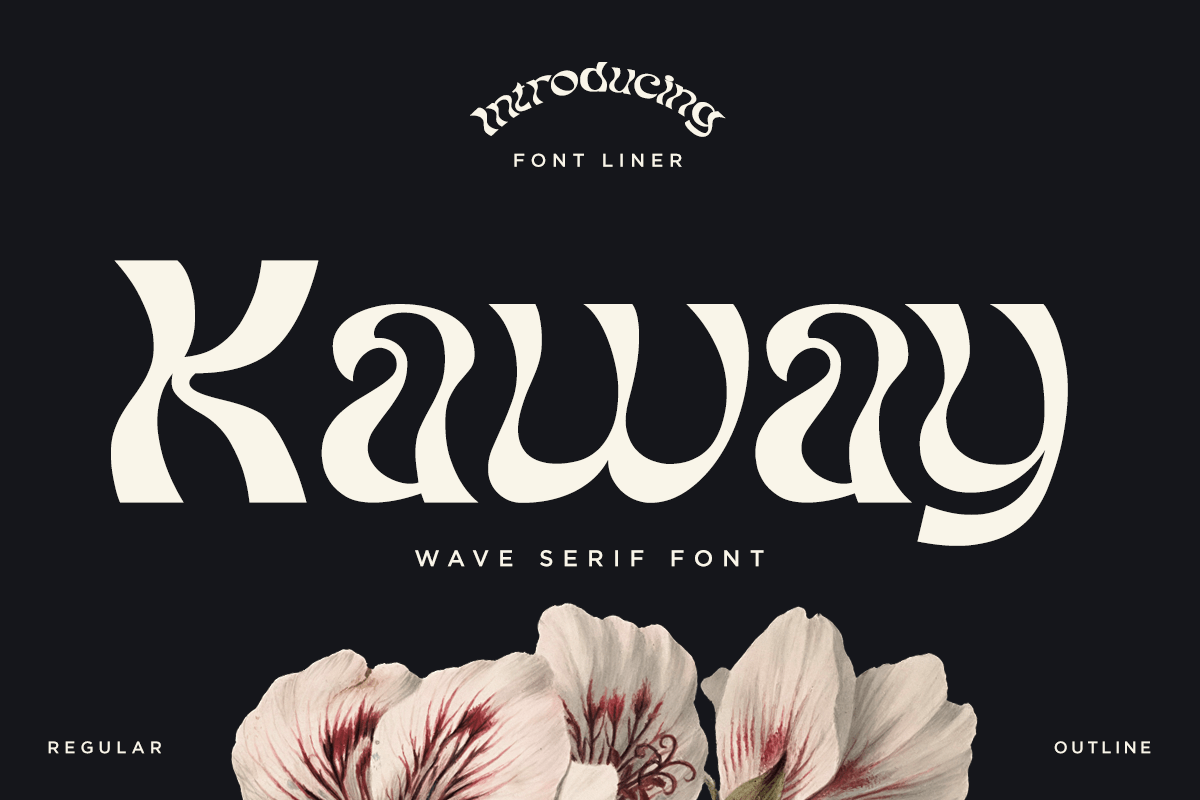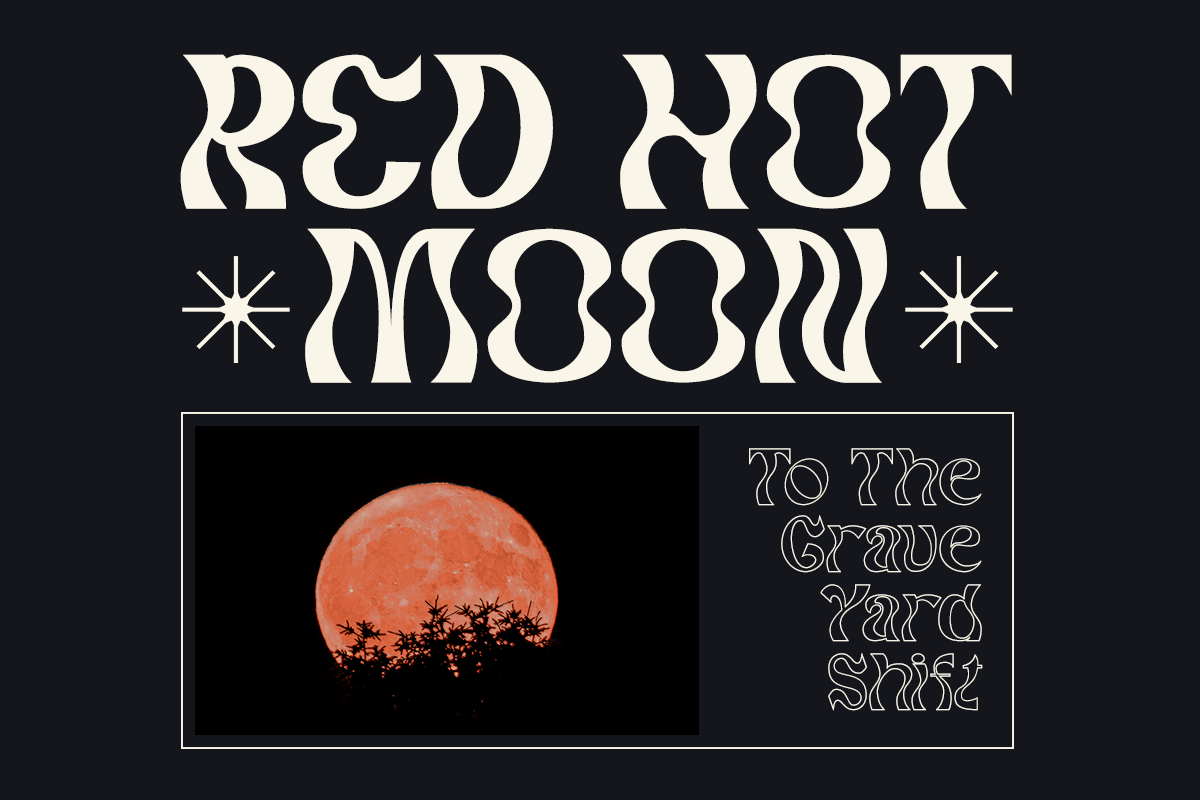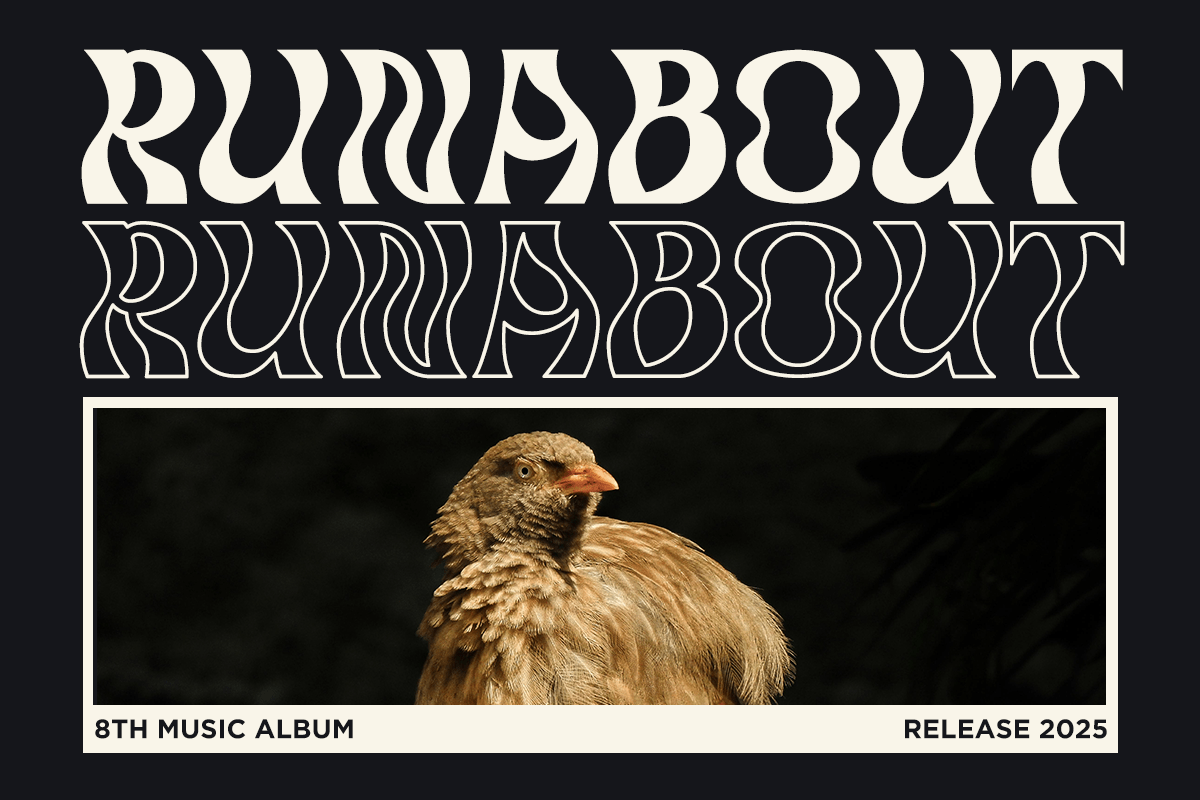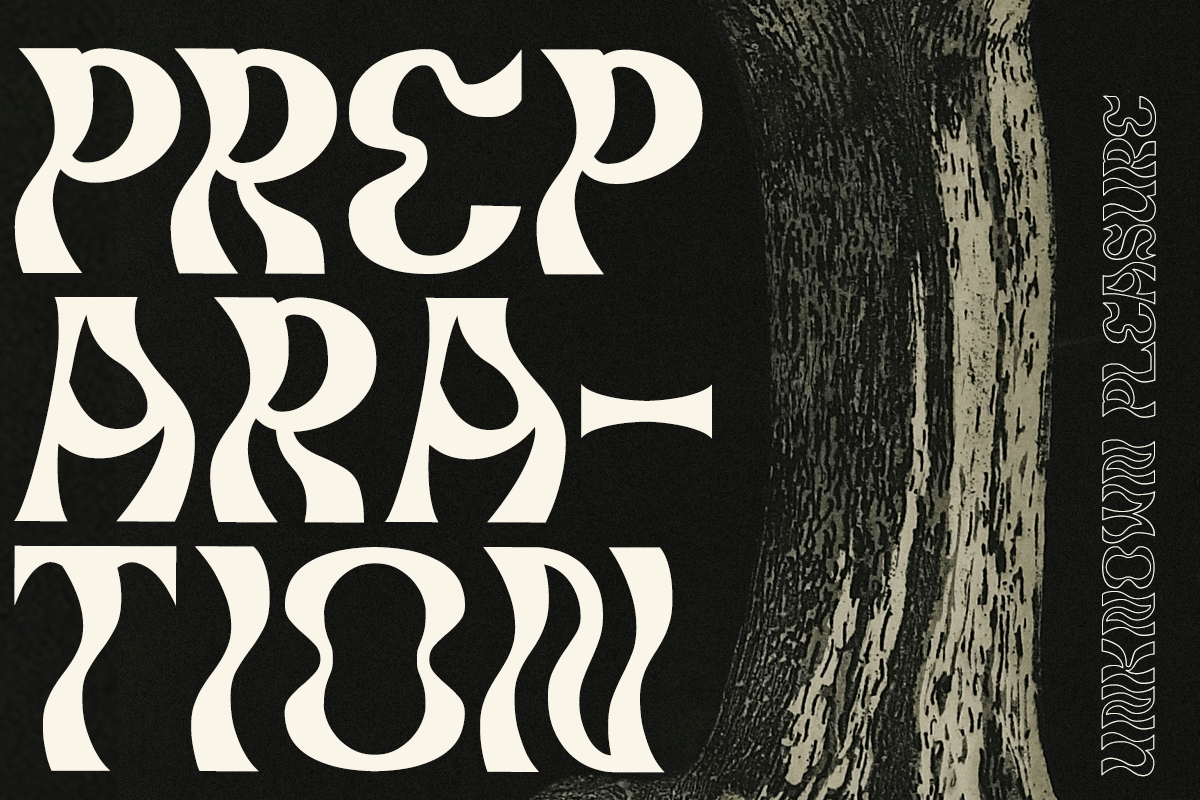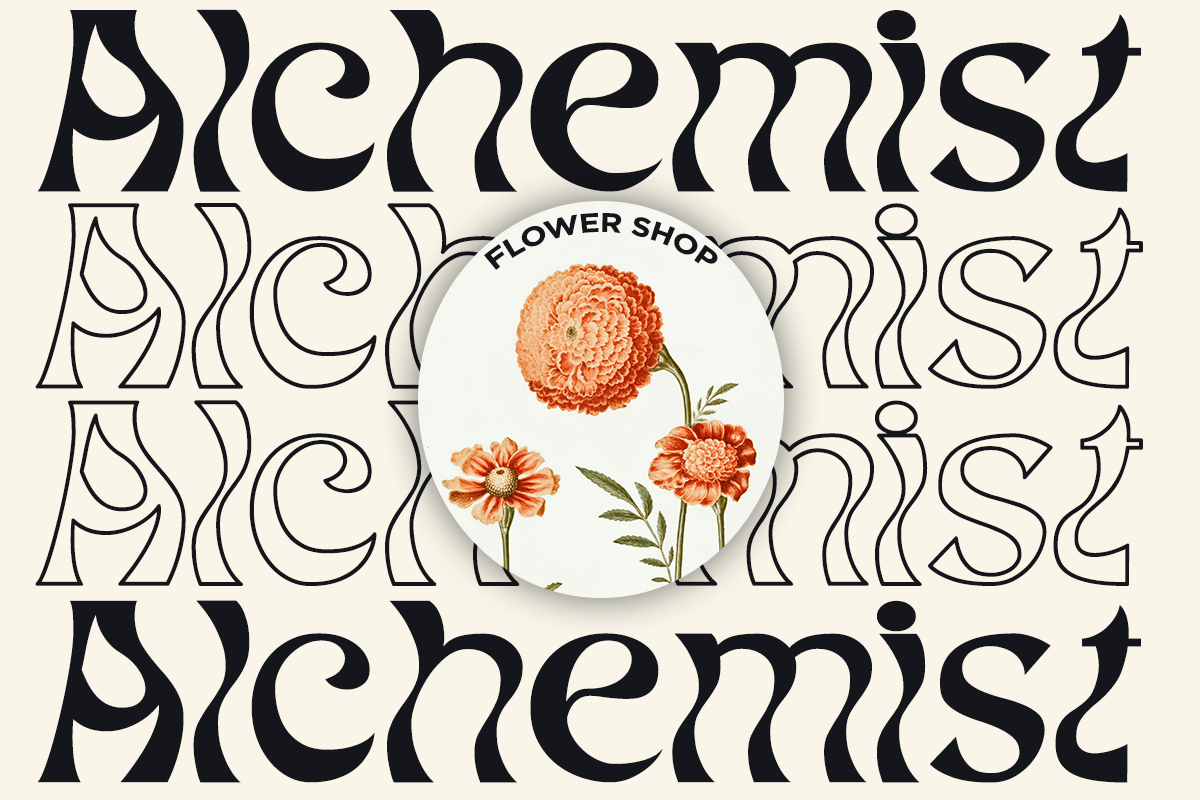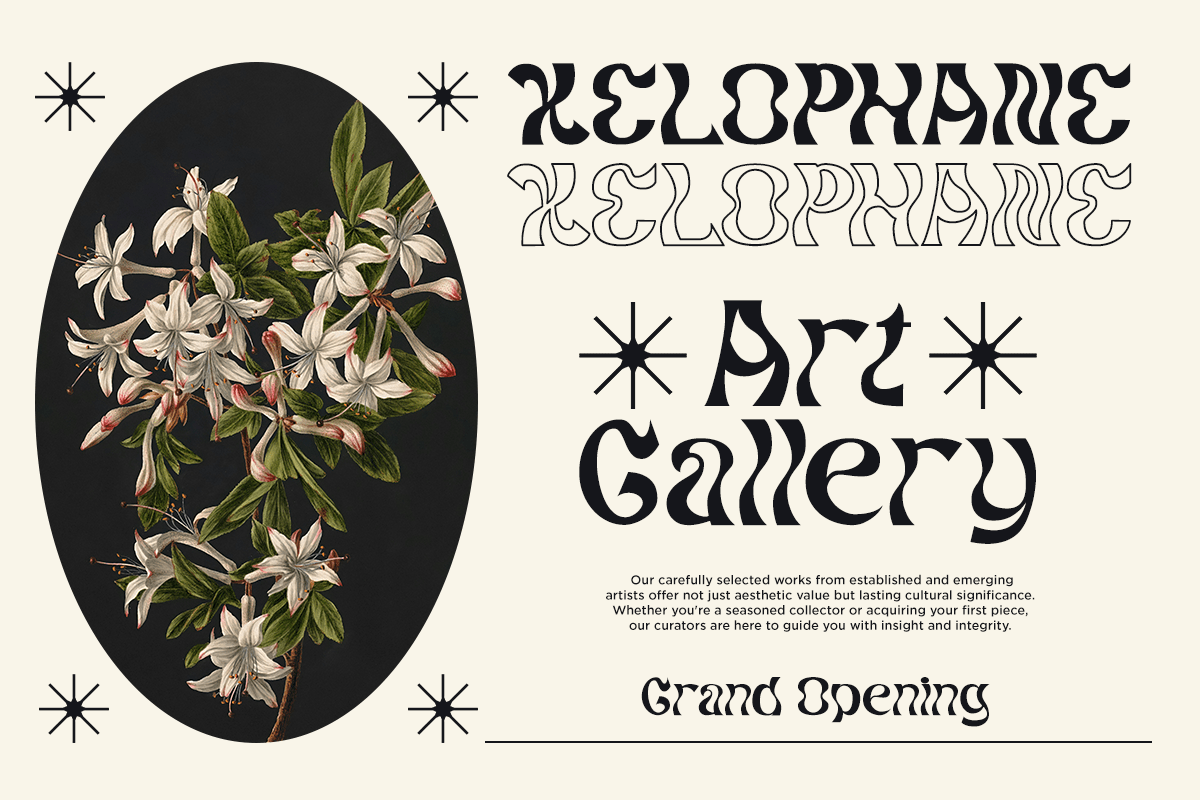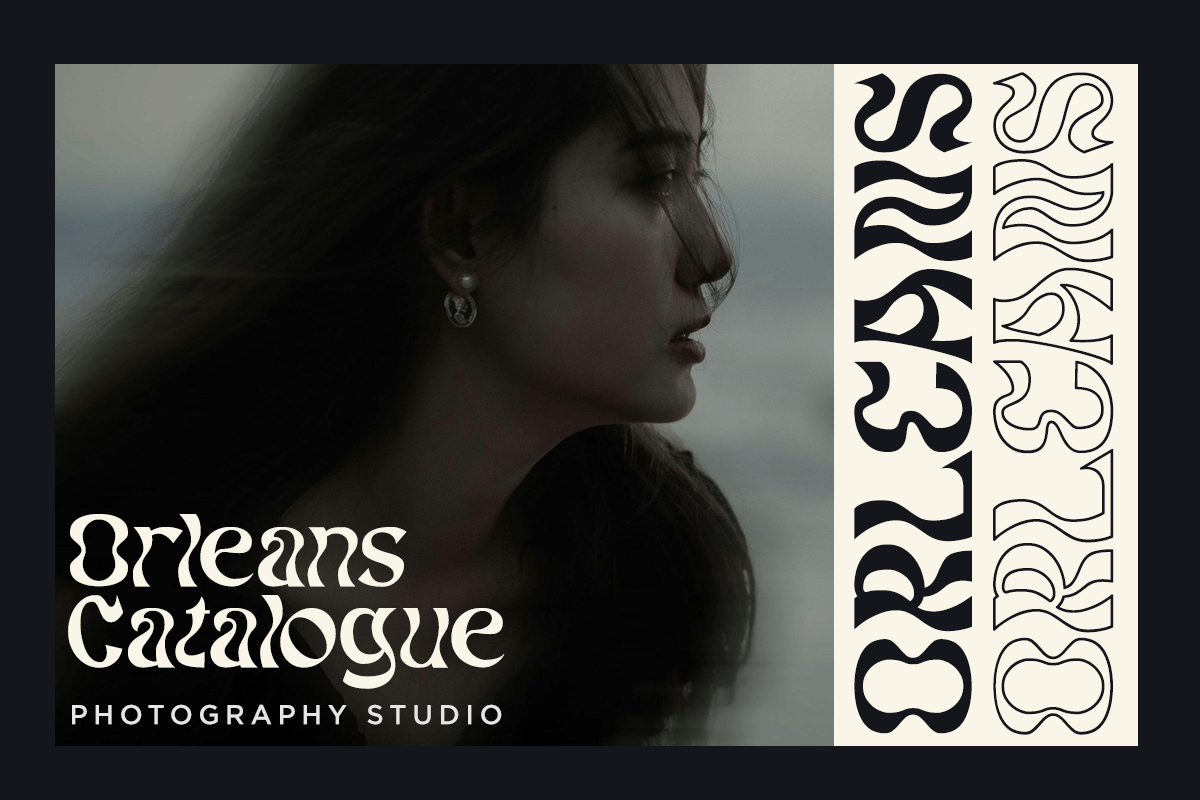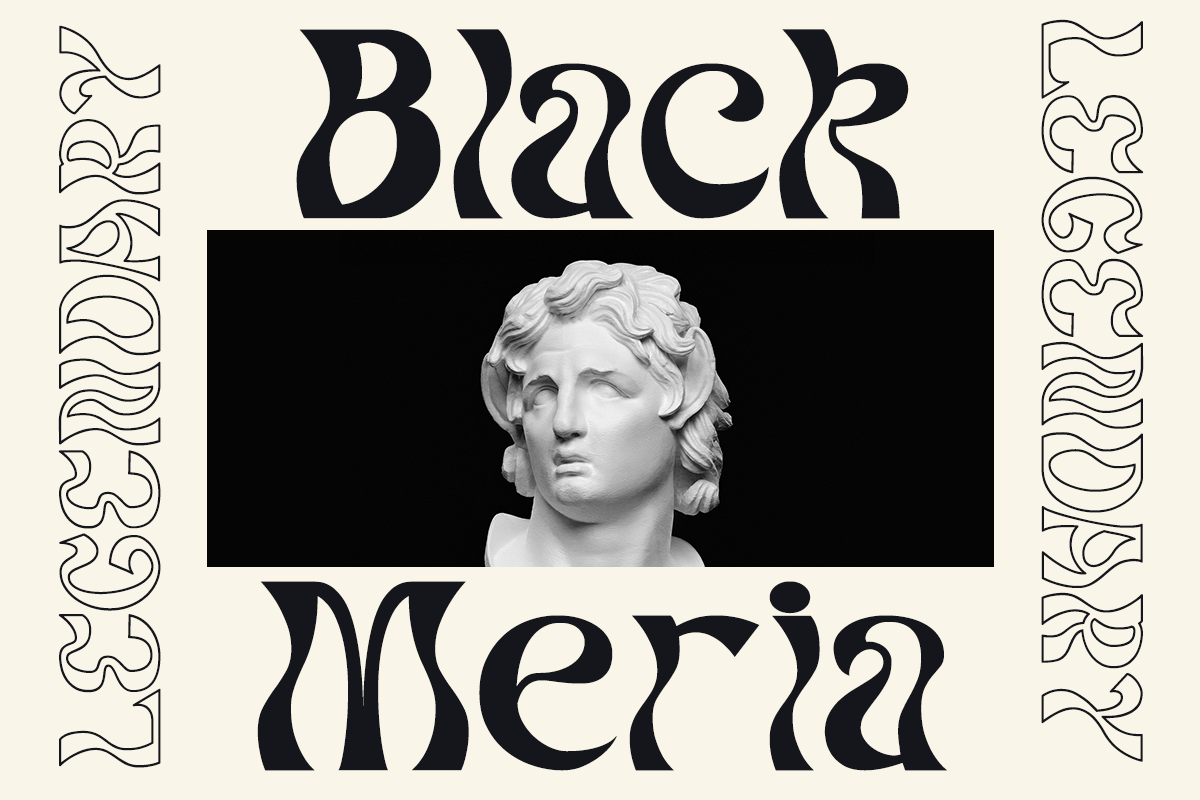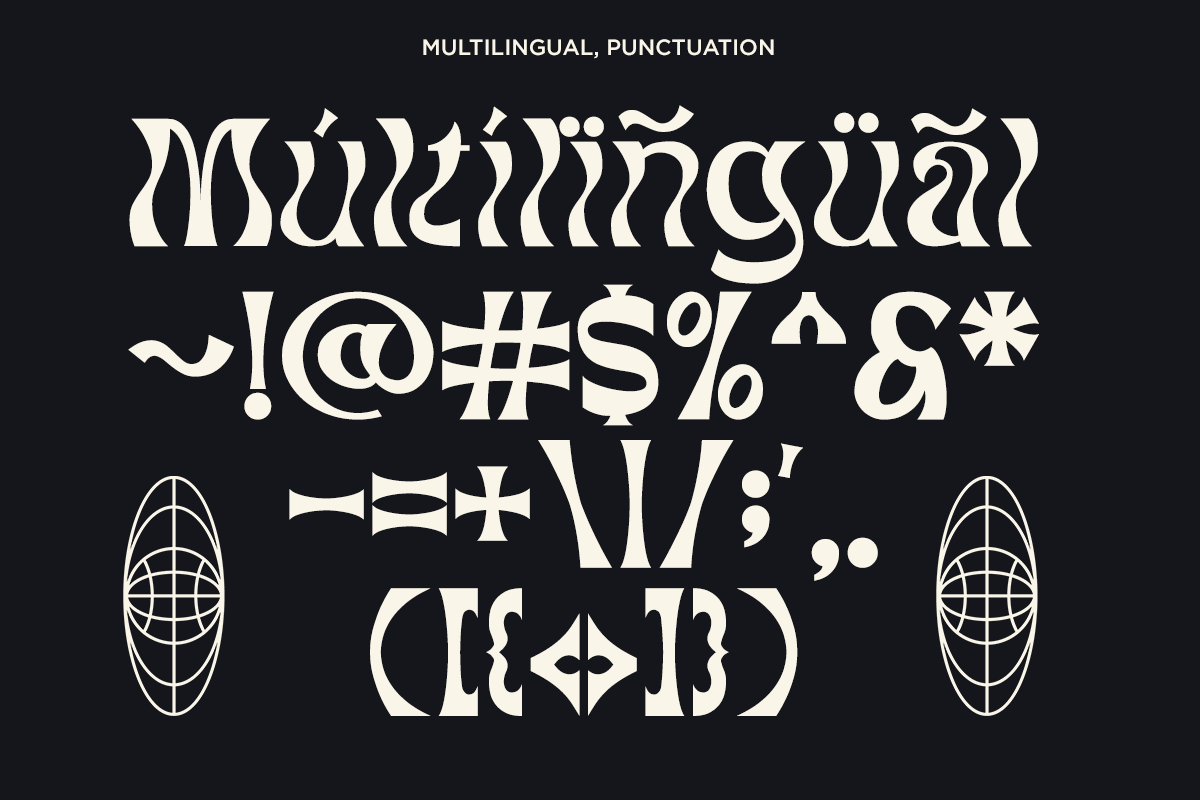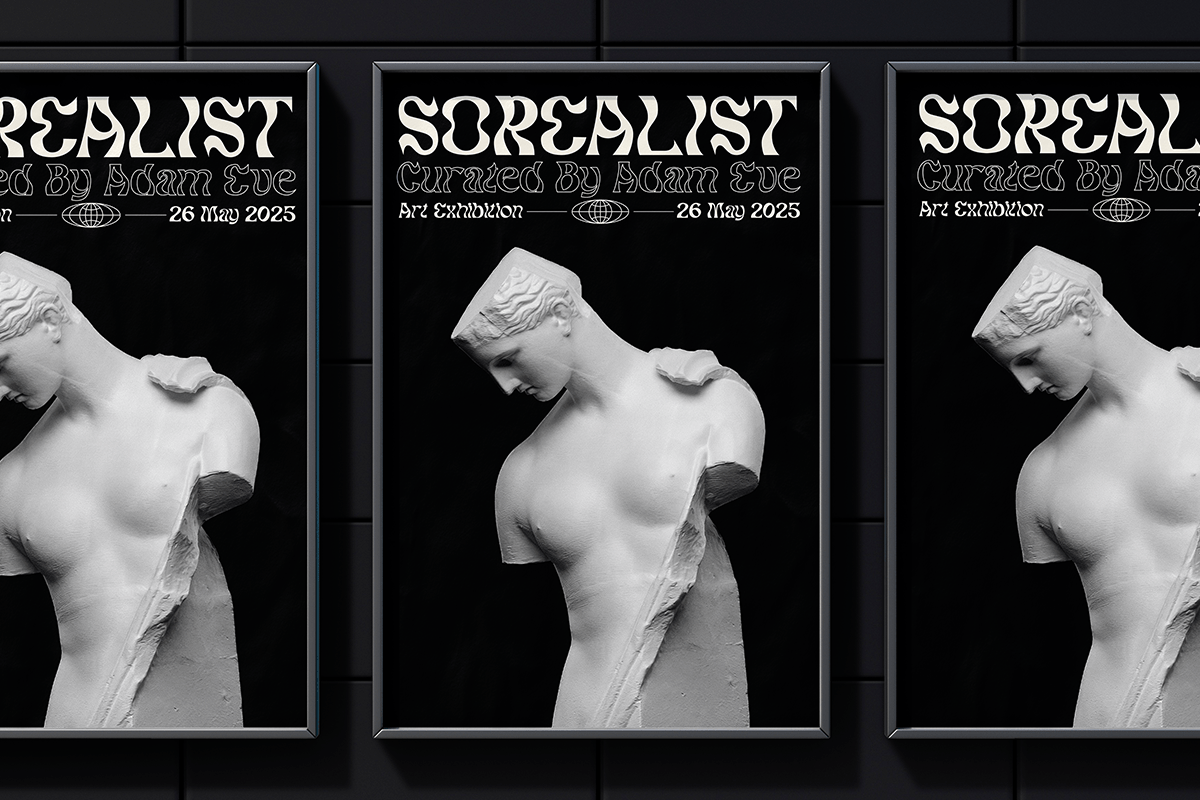
Kaway – Wave Serif Font
Kaway is a unique wave serif font that blends artistic experimentation with elegant vintage aesthetics. Featuring fluid curves, psychedelic-inspired letterforms, and expressive decorative details, this typeface creates a bold visual identity that feels both nostalgic and contemporary. Its organic shapes and distinctive personality make Kaway the perfect choice for designers seeking typography that stands out with creativity and style.
Designed for music posters, album covers, fashion branding, editorials, art galleries, cafés, restaurants, beauty brands, packaging, photography, creative agencies, social media, and premium merchandise, Kaway delivers eye-catching typography across both print and digital media. Whether you’re designing expressive logos, editorial headlines, event posters, or artistic branding, this font instantly adds originality and visual impact to every composition.
Kaway includes uppercase and lowercase characters, stylistic alternates, multilingual support, numerals, punctuation, and symbols, providing complete flexibility for professional creative work. From retro-inspired campaigns and luxury branding to modern artistic projects and boutique packaging, Kaway is the ideal wave serif font for designers who want expressive typography with timeless character.
– Stylistic alternates
– Uppercase, Lowercase & Ligatures